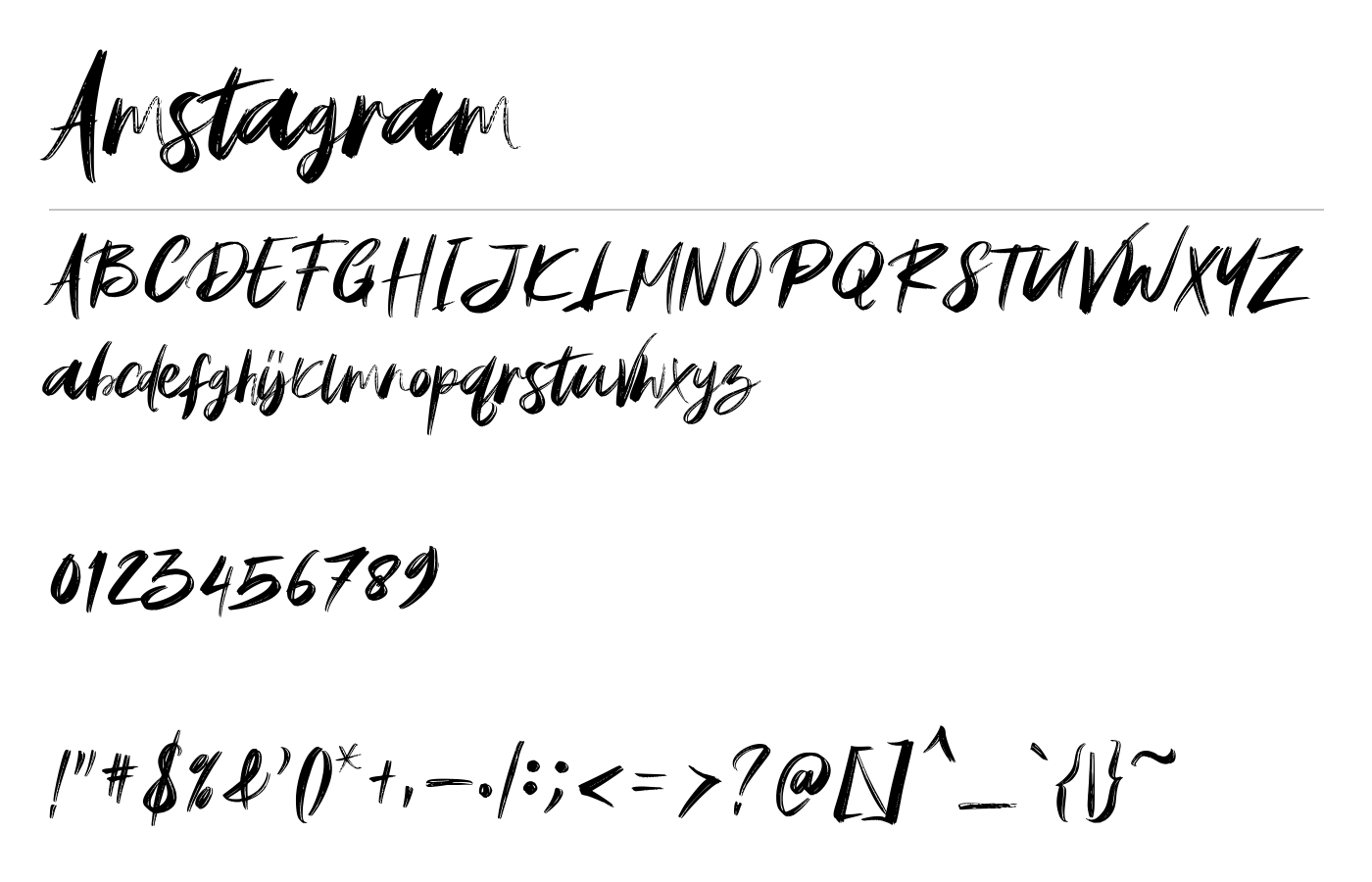
Amstagram is a lively and expressive script font with a bold, brush-stroke texture that gives it an energetic and handcrafted feel. Its irregular, slightly rough edges and varying stroke weight create a dynamic, artistic style that works well for creative branding, casual headlines, and designs seeking a personal, authentic touch. This font is ideal for projects that want to convey creativity, spontaneity, and a modern, informal vibe.
Amstagram Font
About Amstagram Font